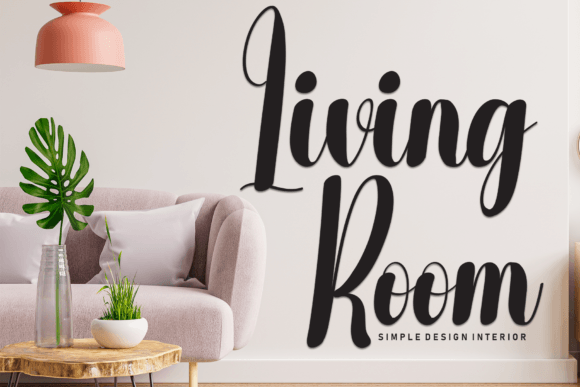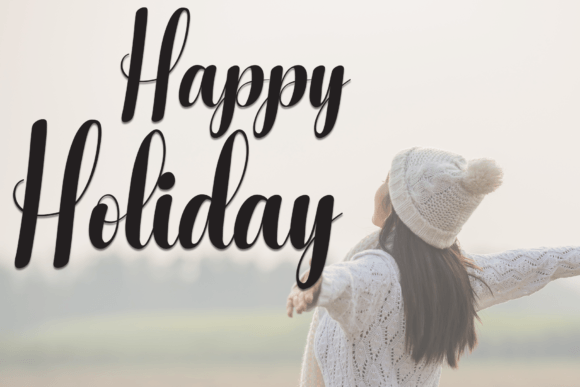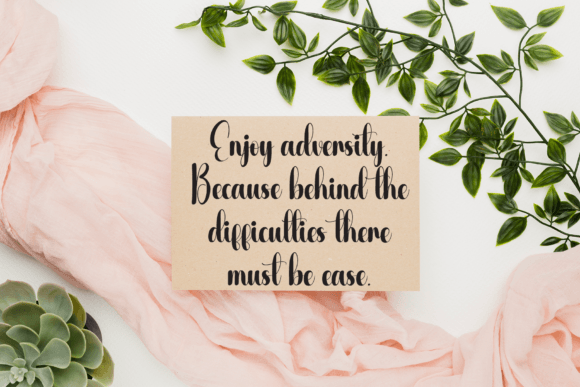
QUarry is a sweet and friendly handwritten font.
Fresh and casual, this font is ideal for writing wedding invitations, cards, or any other design that might need a lovely touch .
Quarry Font offers exceptional quality and versatility, making it a valuable addition to your design toolkit. Whether you’re creating for personal projects or commercial use, Quarry Font delivers professional results.